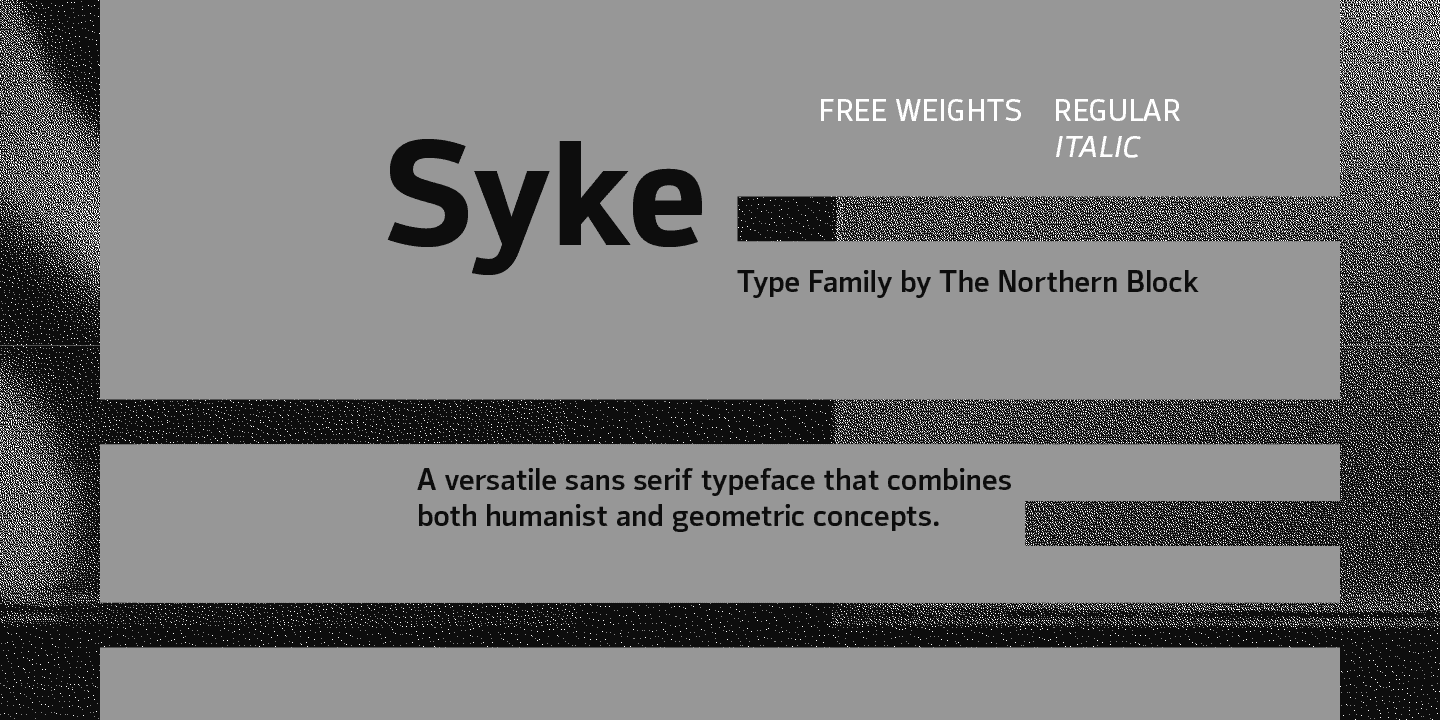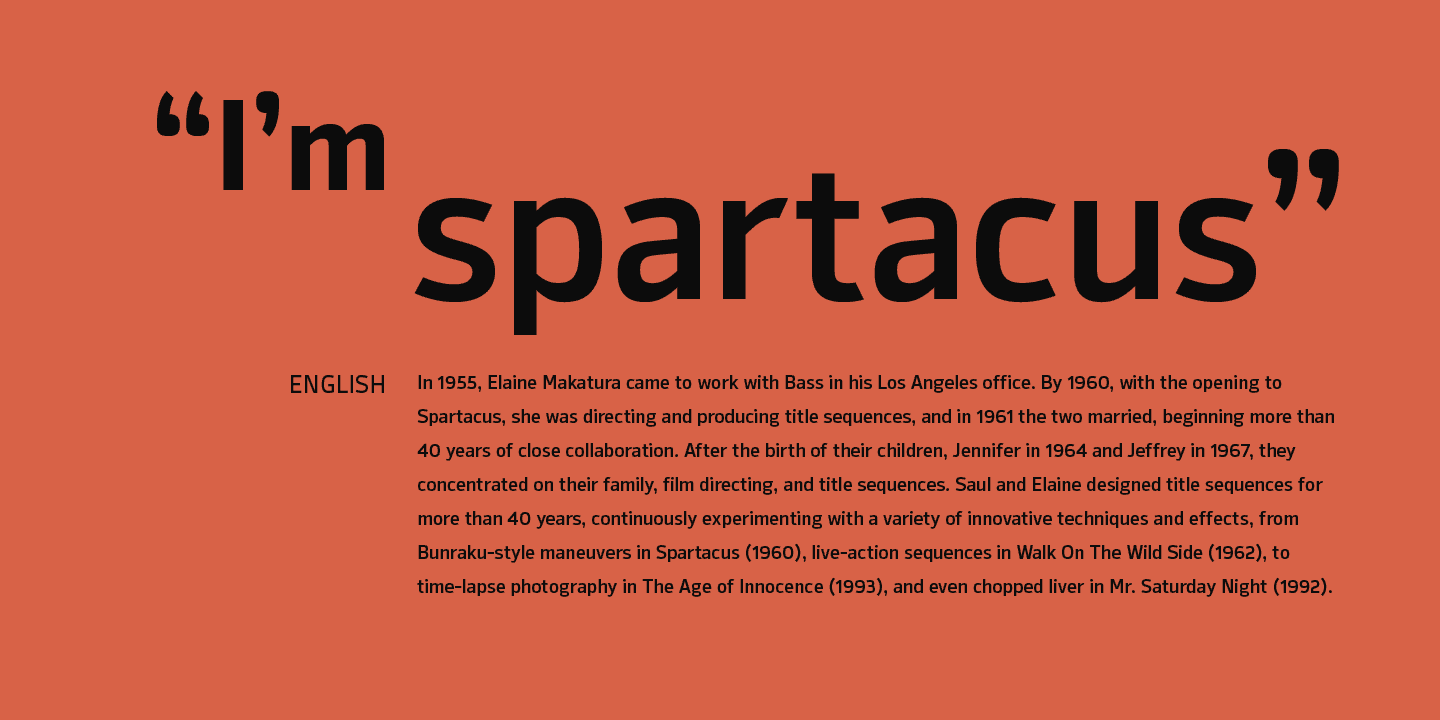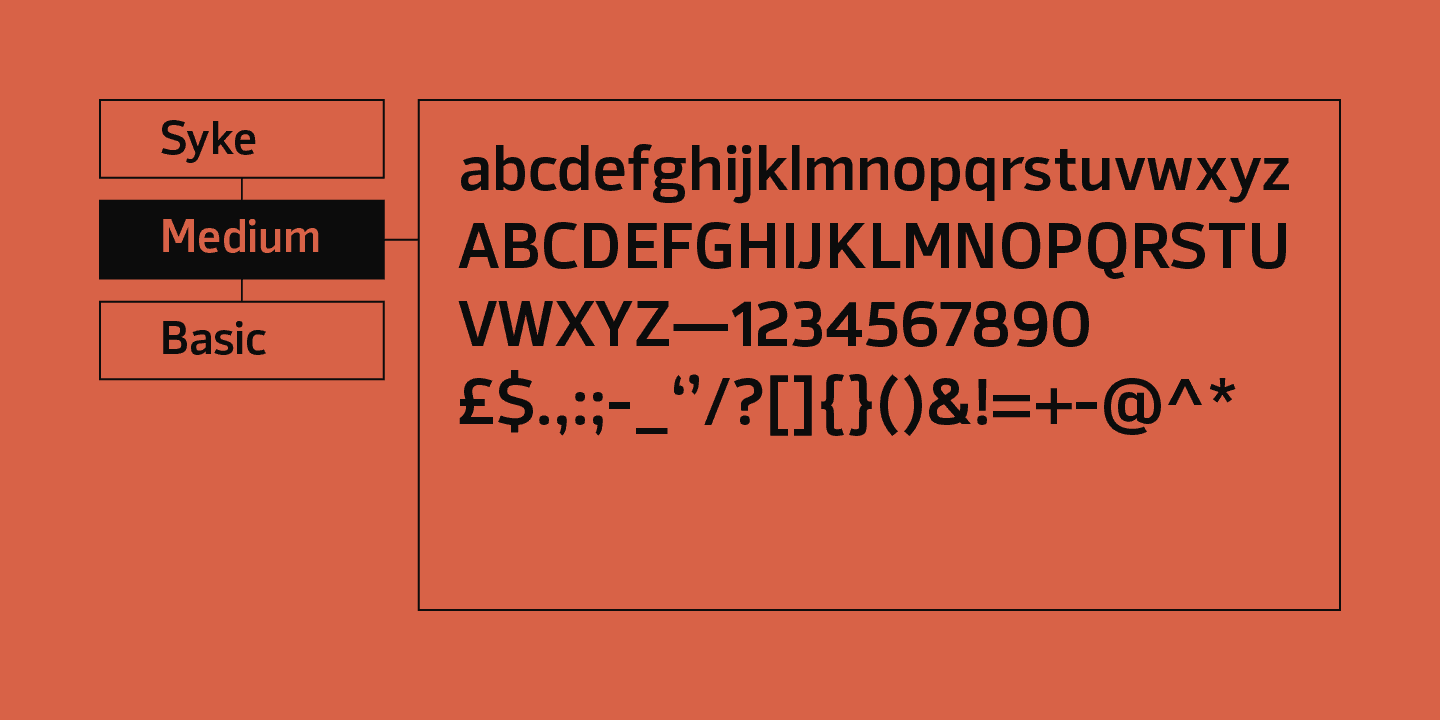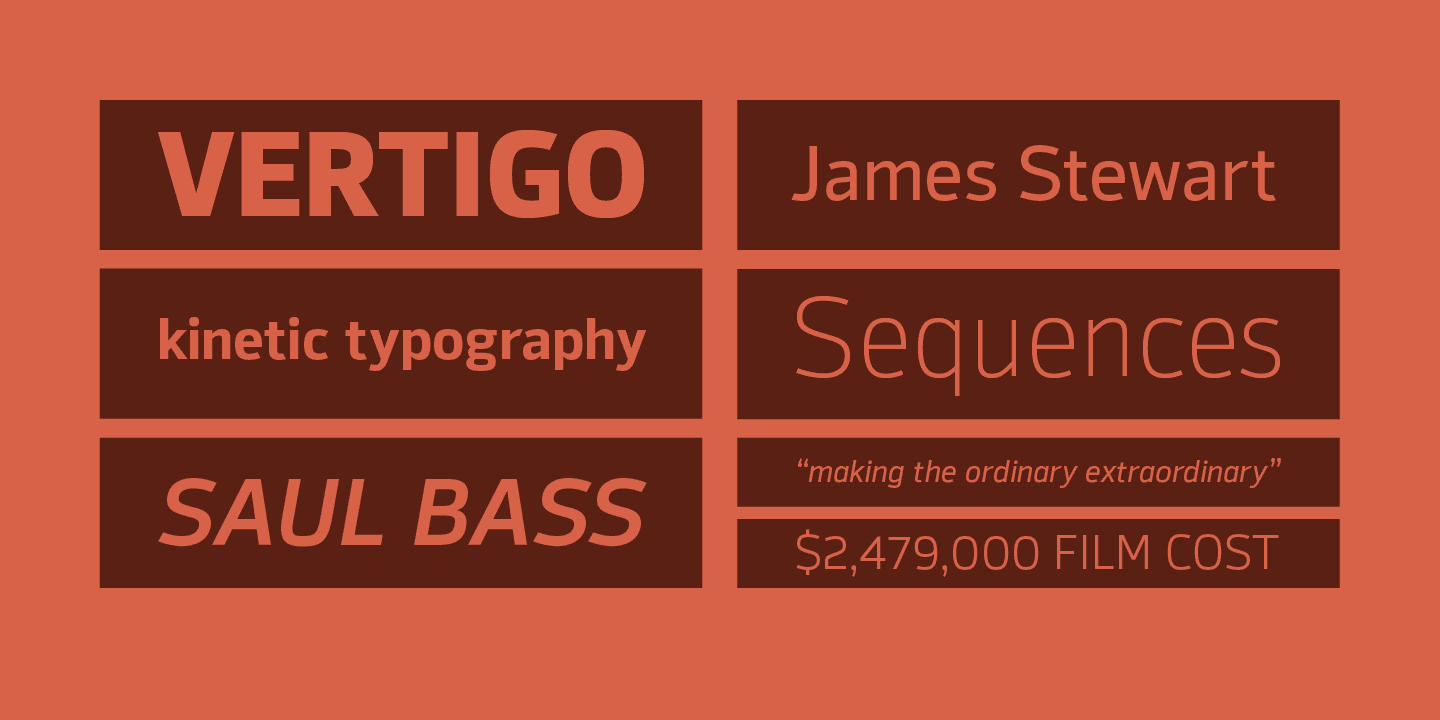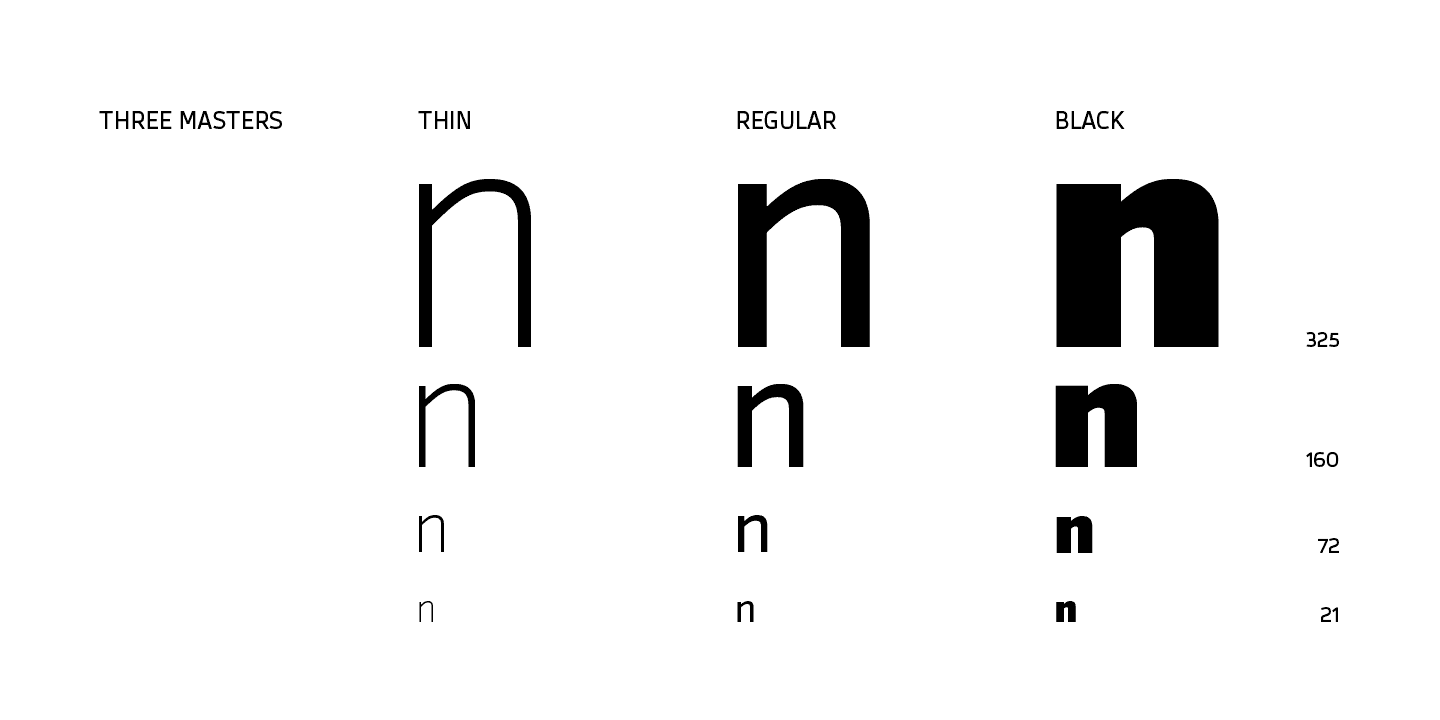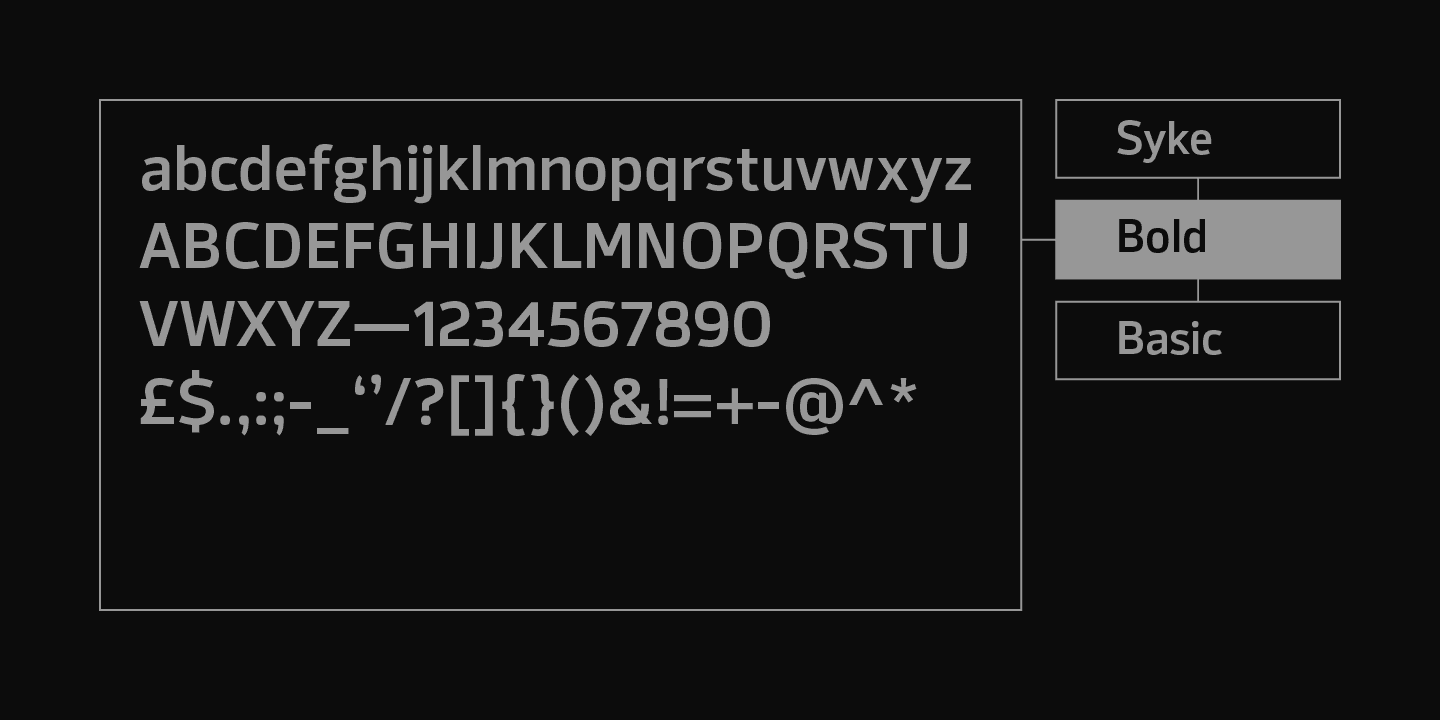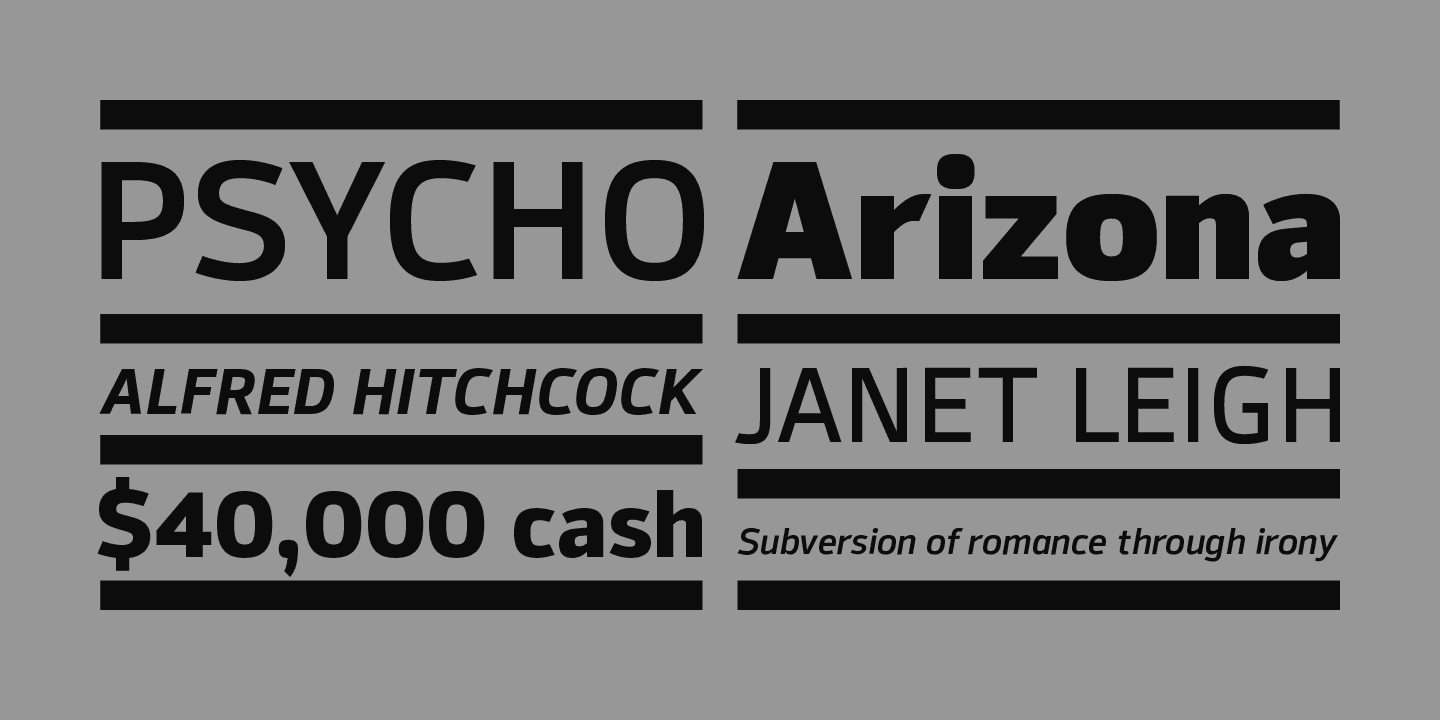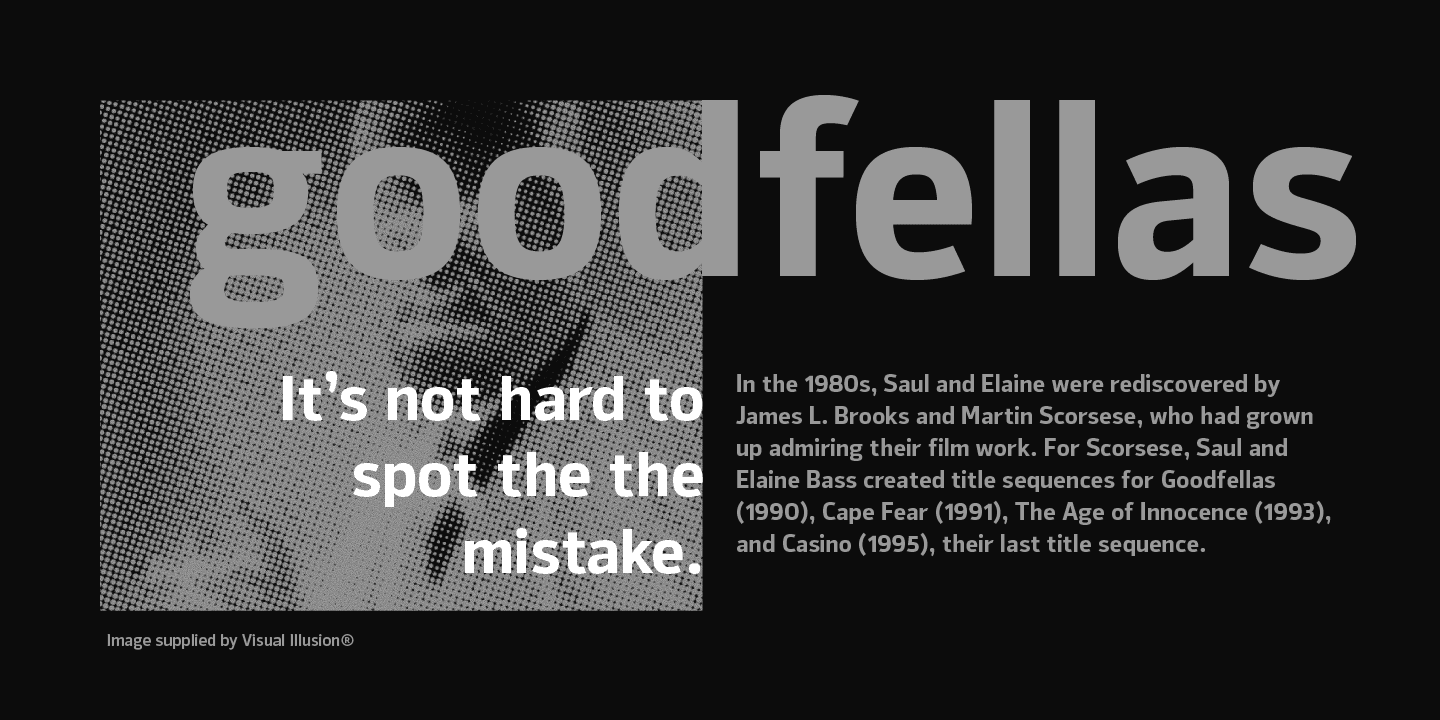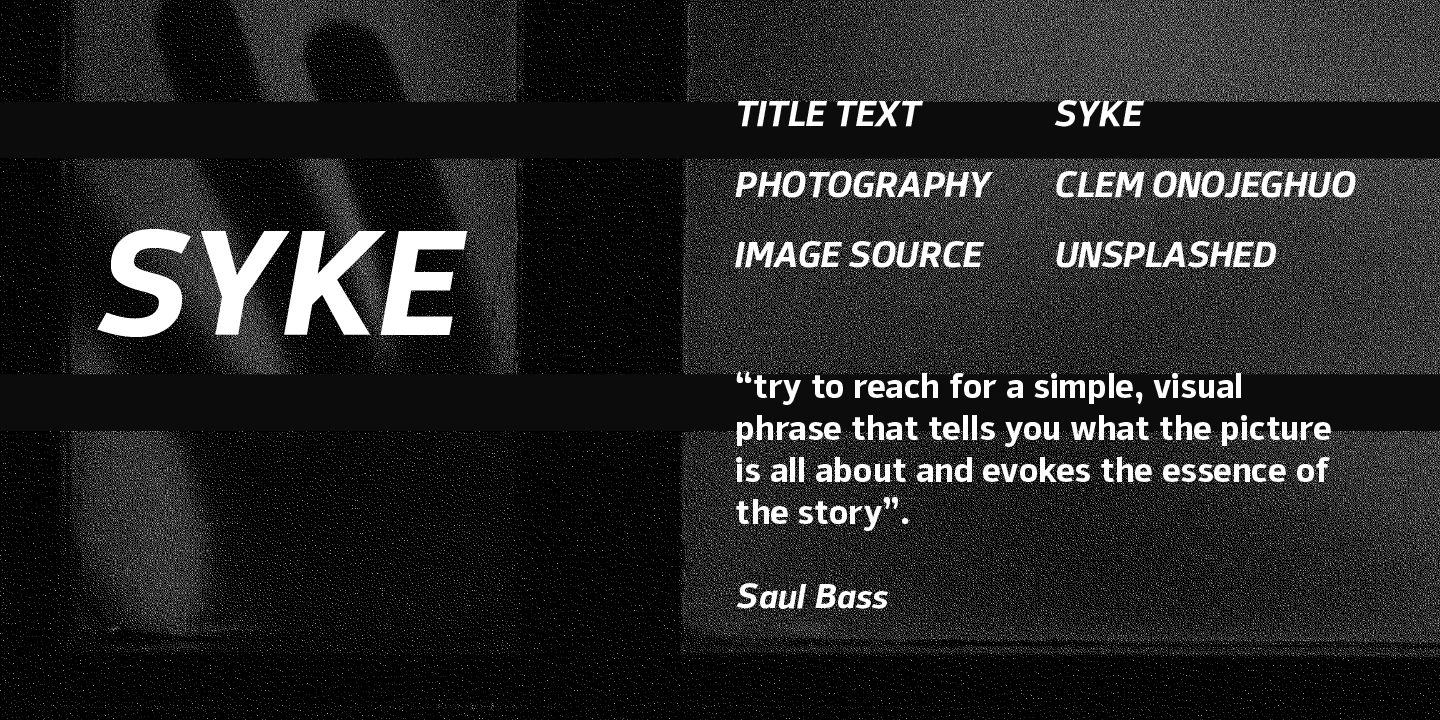
Syke Font Family is a versatile sans serif font set. As a companion to the monospaced Syke Mono, it blends narrow rounded letterforms with subtle square details, creating a design ideal for typographic work in digital applications. Syke has a distinct character without being overwhelming, making it ideal for titles, user interfaces, and the web.
Details include seven weights with italic and two freestyle weights, over 570 characters, five variations of numerals, ligatures, hand-edited kerning and Opentype features. For a monospaced version of this type, visit